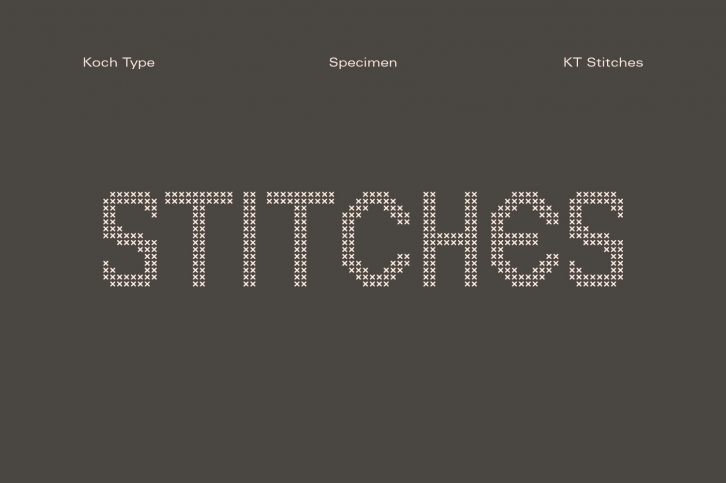
Instead of the traditional view of a typeface as a collection of static styles,
Stitches embraces the idea of a fluid design space. As a dynamic tool,
it enables joyful typesetting that allows for fully responsive designs.
The result is an impressively extensive typographic system with a distinctive personality.